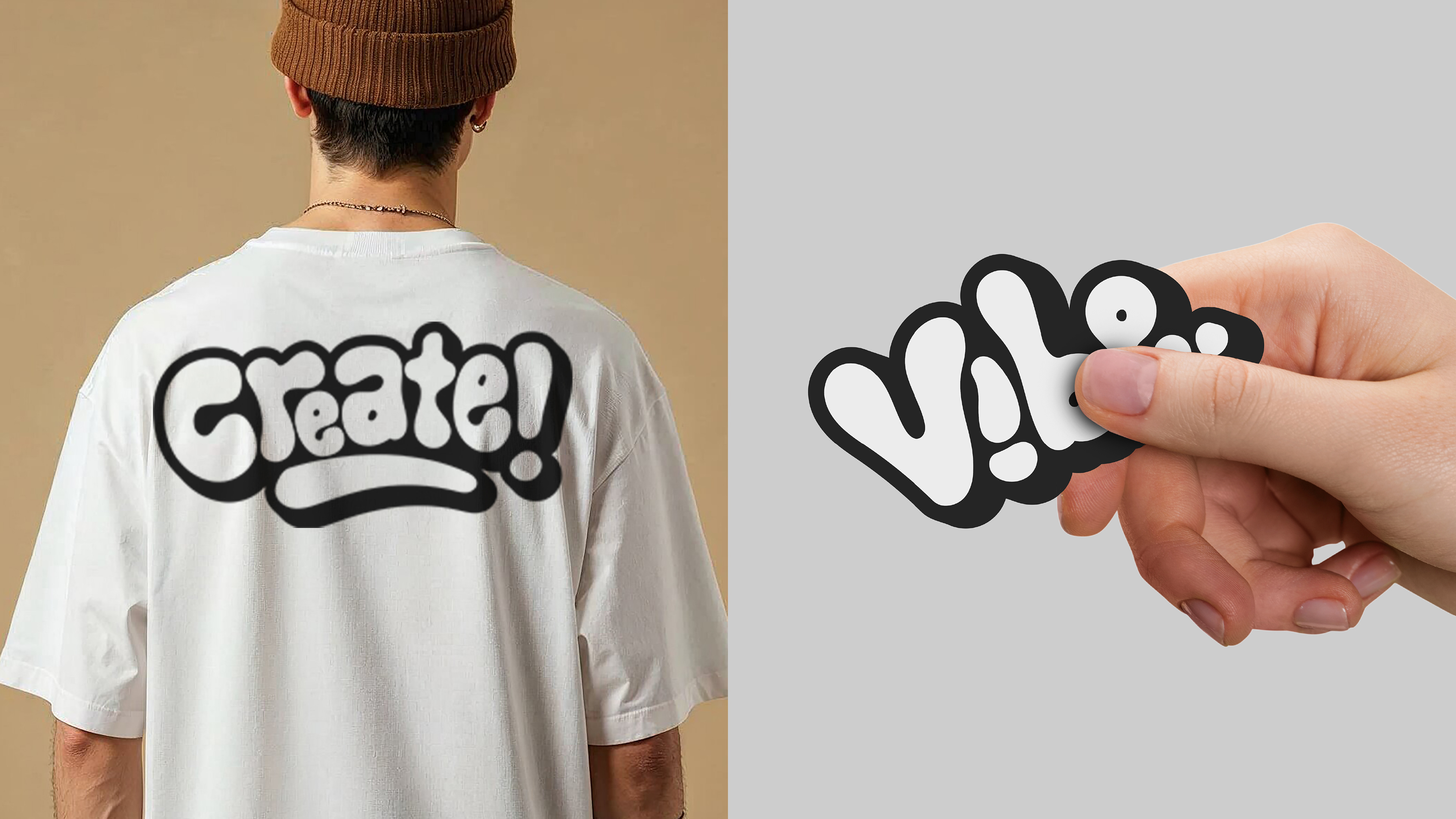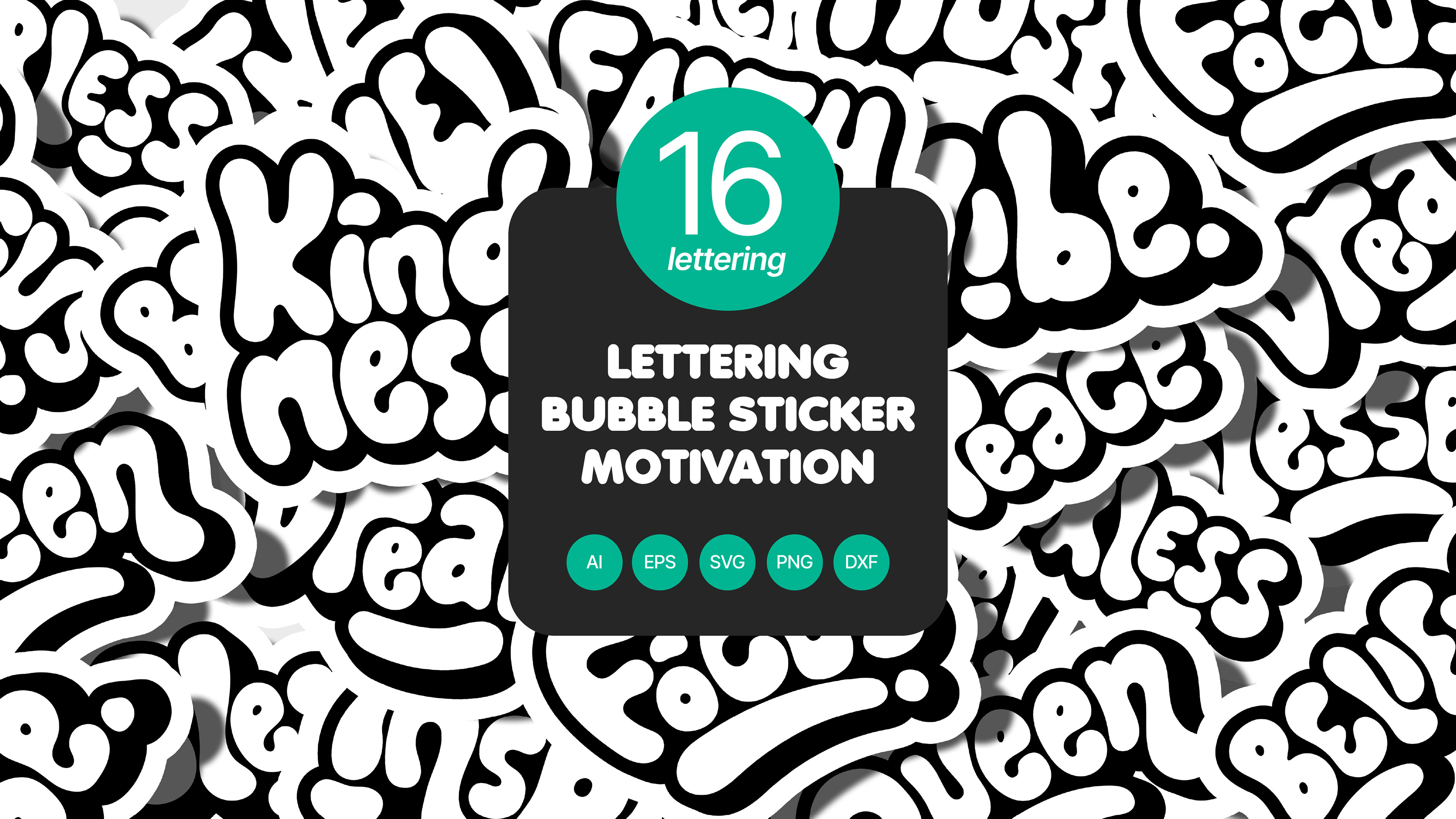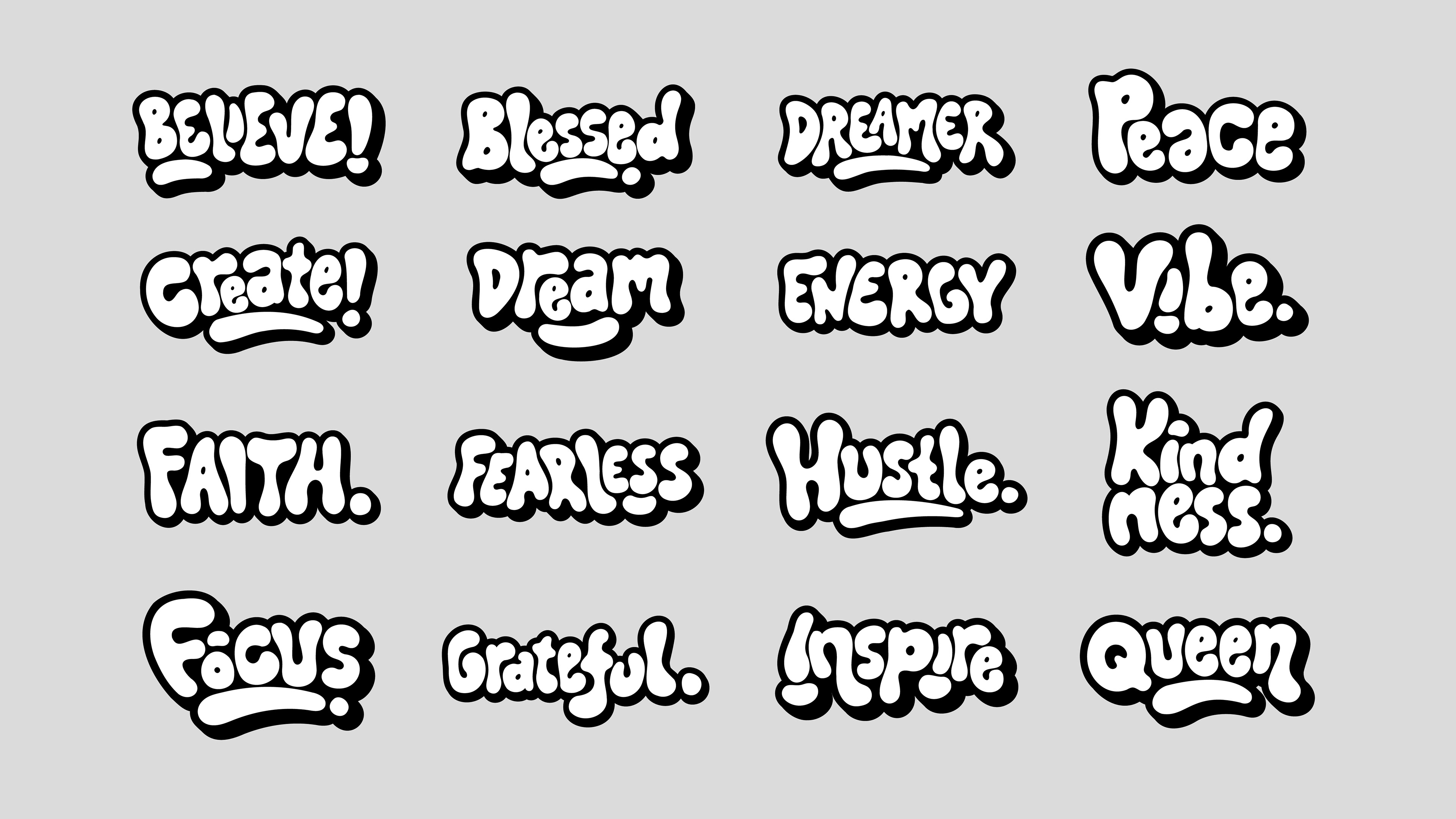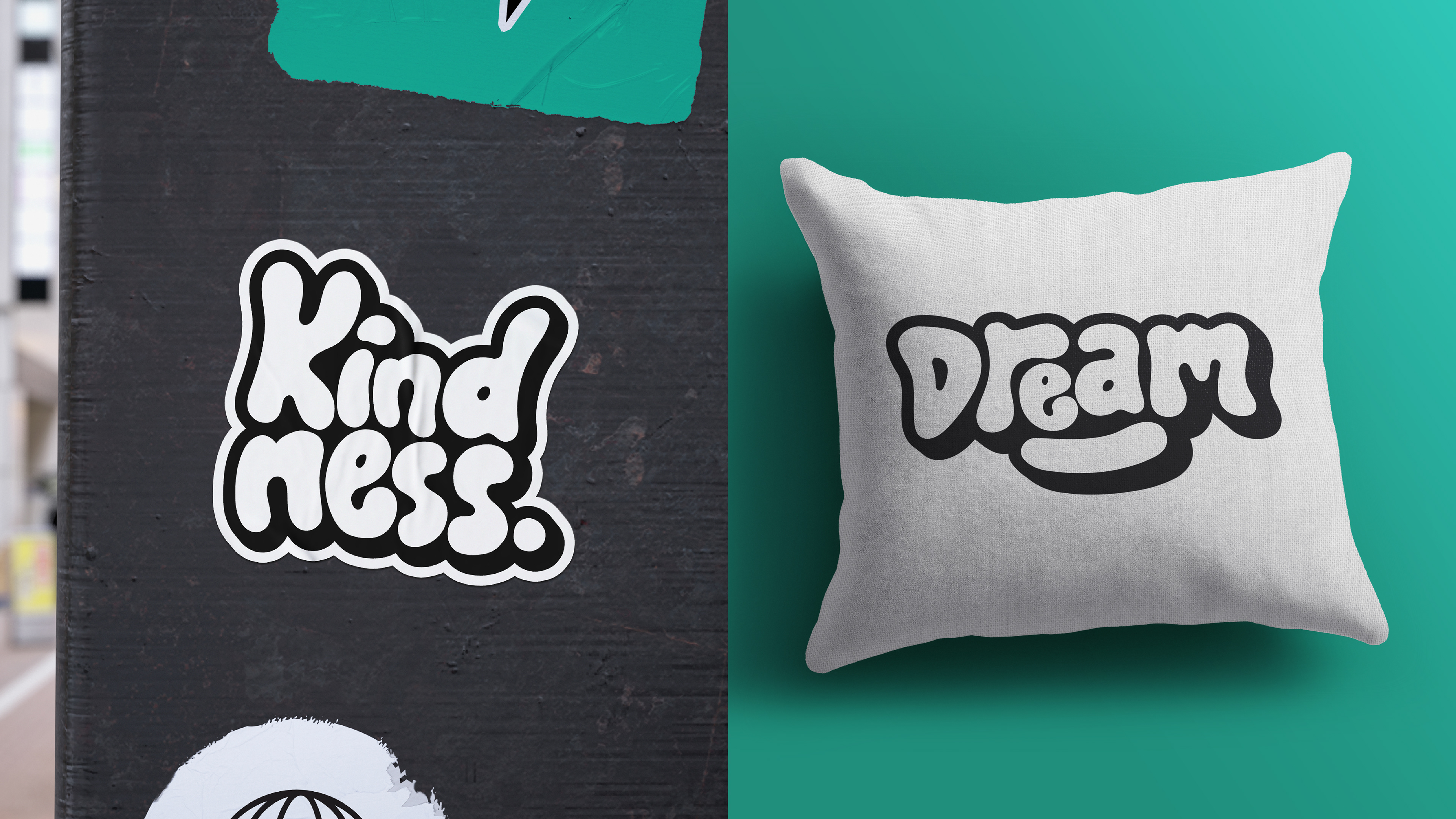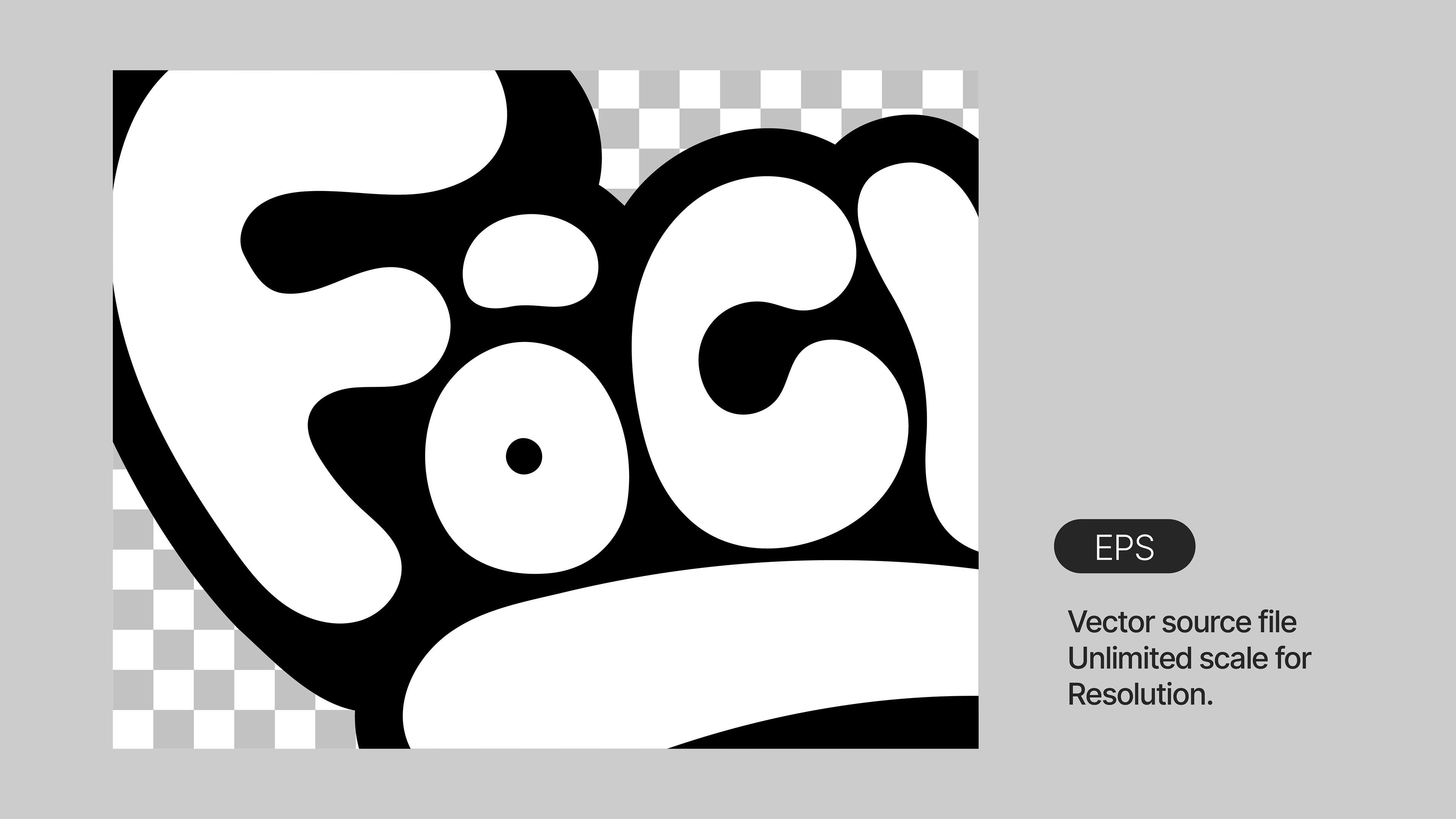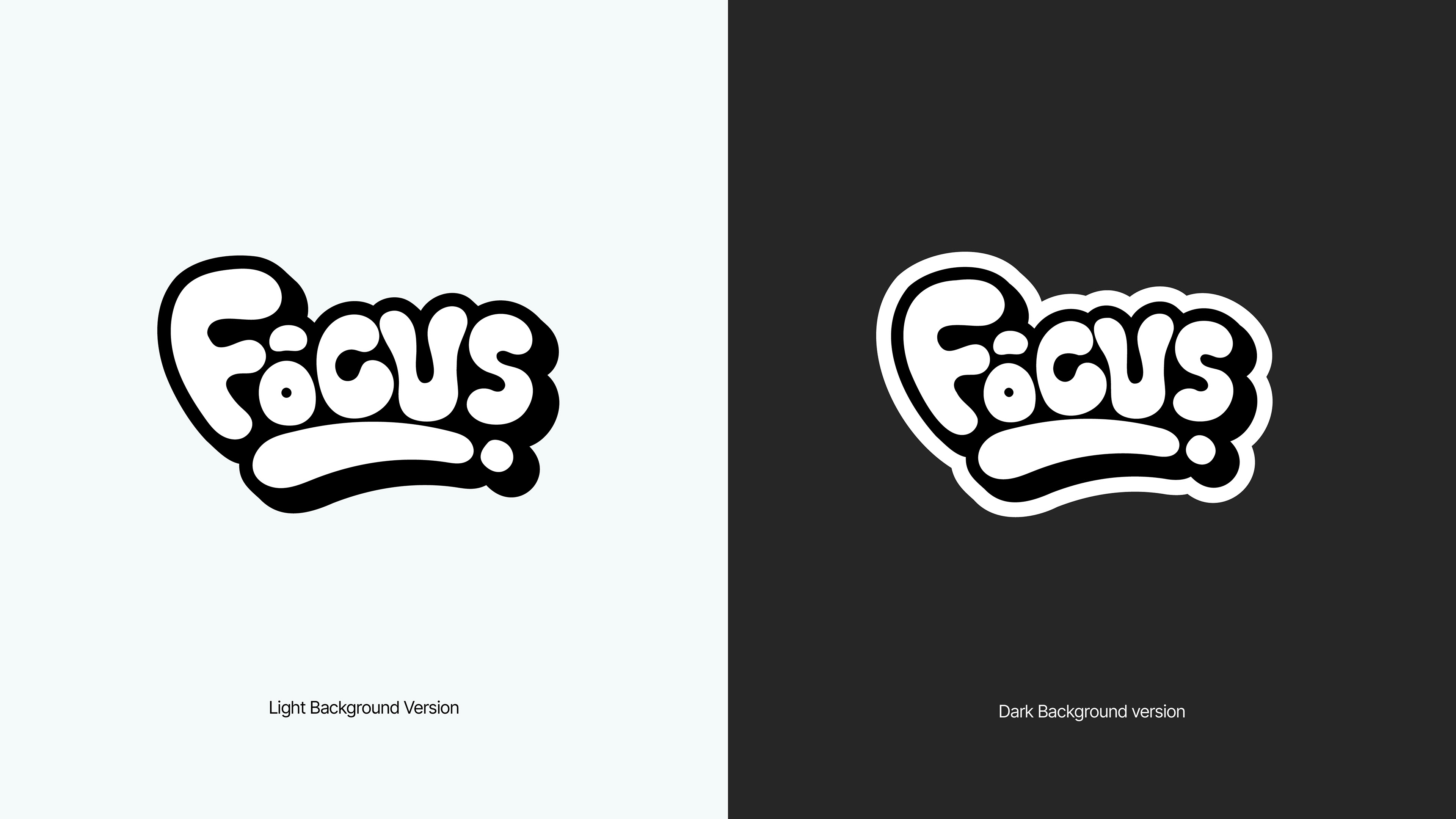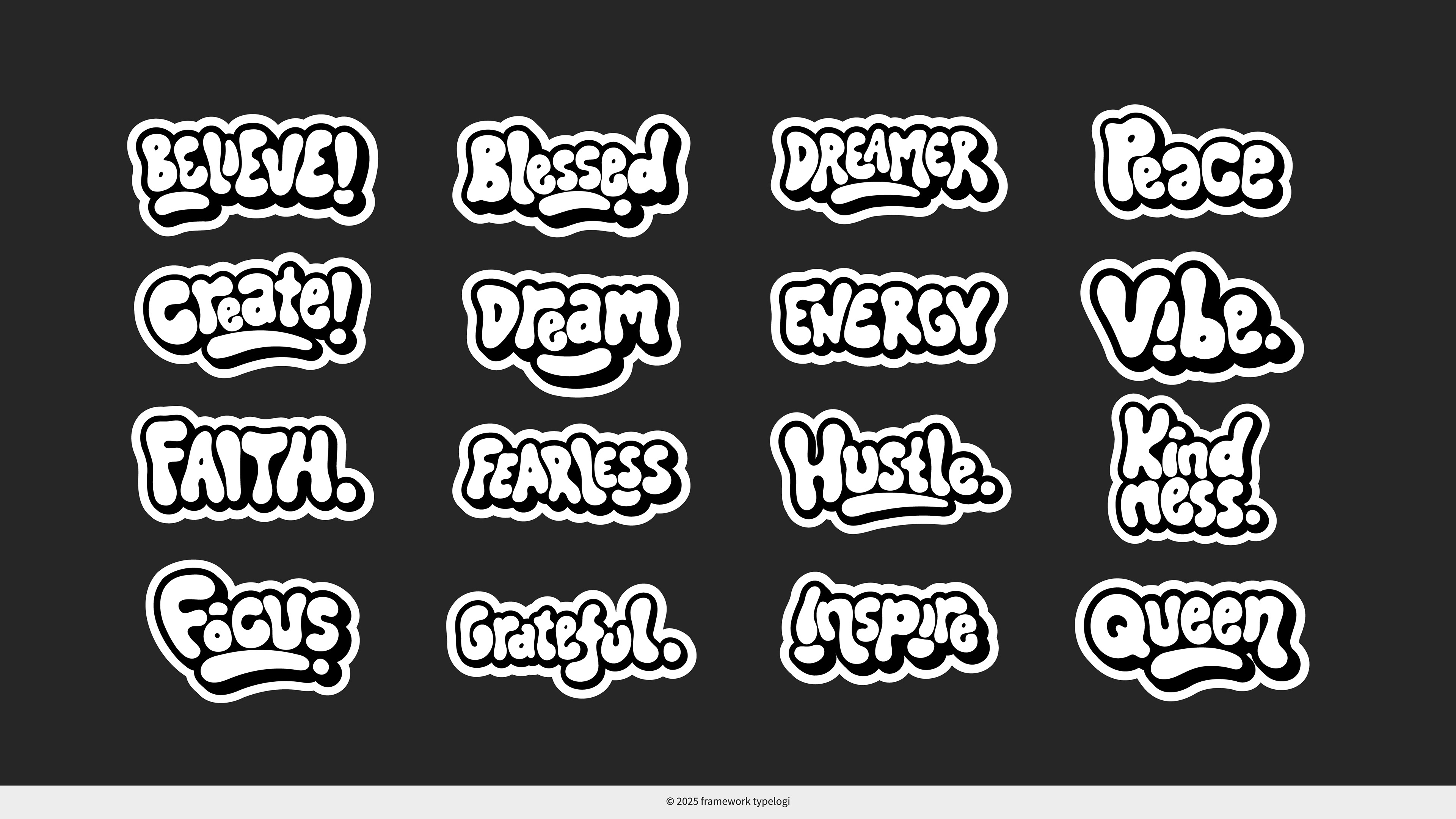
Unique hand lettering vector of bubble sticker about motivation, Vision, Hope, Purpose. Suitable for Printing sticker, Craft, merchandise, posters, wall art, home decoration, digital content, gifts card, product, brand campaign, small business